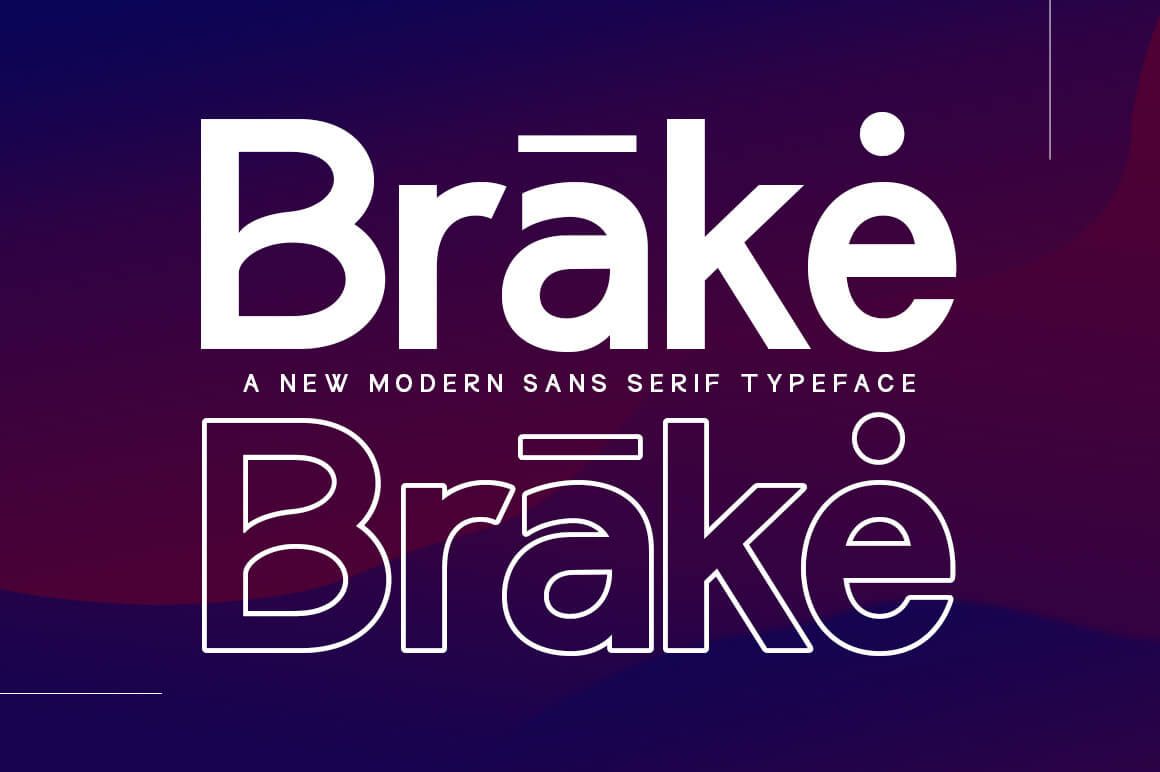
Brake Font Free Download . Brake disc display font is a sport display typeface inspired by the mid era of vintage and modern automotive visual branding. This sans serif font we call break sans, breaks with tradition in a big way and has five classifications from bold to extra light as well as both uppercase and lower case letters, numbers as well symbols. You can use this font for free at www.canva.com just search for 'brake' in the font list. Or if you want to use and license this font for personal or commercial purposes just. Discover a world of captivating typography for your creative projects. Brakes € by type on studio. 3,412,412 downloads (167 yesterday) 54 comments 100%. Brakes font download is available free from fontget. Master of break font | dafont.com english français español deutsch italiano português. Unleash your design potential today! Explore brake fonts at myfonts. Brakes is a free font for personal use created by type on studio.
Unleash your design potential today! This sans serif font we call break sans, breaks with tradition in a big way and has five classifications from bold to extra light as well as both uppercase and lower case letters, numbers as well symbols. Master of break font | dafont.com english français español deutsch italiano português. Explore brake fonts at myfonts. You can use this font for free at www.canva.com just search for 'brake' in the font list. Or if you want to use and license this font for personal or commercial purposes just. Brakes font download is available free from fontget. Brakes € by type on studio. 3,412,412 downloads (167 yesterday) 54 comments 100%. Discover a world of captivating typography for your creative projects.
Brake Font Free Download Explore brake fonts at myfonts. You can use this font for free at www.canva.com just search for 'brake' in the font list. Brakes is a free font for personal use created by type on studio. Discover a world of captivating typography for your creative projects. Unleash your design potential today! Or if you want to use and license this font for personal or commercial purposes just. 3,412,412 downloads (167 yesterday) 54 comments 100%. Brake disc display font is a sport display typeface inspired by the mid era of vintage and modern automotive visual branding. Explore brake fonts at myfonts. This sans serif font we call break sans, breaks with tradition in a big way and has five classifications from bold to extra light as well as both uppercase and lower case letters, numbers as well symbols. Brakes font download is available free from fontget. Master of break font | dafont.com english français español deutsch italiano português. Brakes € by type on studio.
Break Brush Font Free Font Brake Font Free Download Brakes is a free font for personal use created by type on studio. Brake disc display font is a sport display typeface inspired by the mid era of vintage and modern automotive visual branding. 3,412,412 downloads (167 yesterday) 54 comments 100%. Unleash your design potential today! Explore brake fonts at myfonts. Brakes € by type on studio. This sans serif. Brake Font Free Download.
Brake A Leg Font download free Brake Font Free Download Master of break font | dafont.com english français español deutsch italiano português. You can use this font for free at www.canva.com just search for 'brake' in the font list. Brakes is a free font for personal use created by type on studio. Unleash your design potential today! Explore brake fonts at myfonts. Or if you want to use and license. Brake Font Free Download.
Brake DIsc Windows font free for Personal Brake Font Free Download This sans serif font we call break sans, breaks with tradition in a big way and has five classifications from bold to extra light as well as both uppercase and lower case letters, numbers as well symbols. Brakes € by type on studio. Brakes font download is available free from fontget. Master of break font | dafont.com english français español. Brake Font Free Download.
Brake Fluid Font Download For Free, View Sample Text, Rating And More Brake Font Free Download This sans serif font we call break sans, breaks with tradition in a big way and has five classifications from bold to extra light as well as both uppercase and lower case letters, numbers as well symbols. Or if you want to use and license this font for personal or commercial purposes just. Brakes is a free font for personal. Brake Font Free Download.